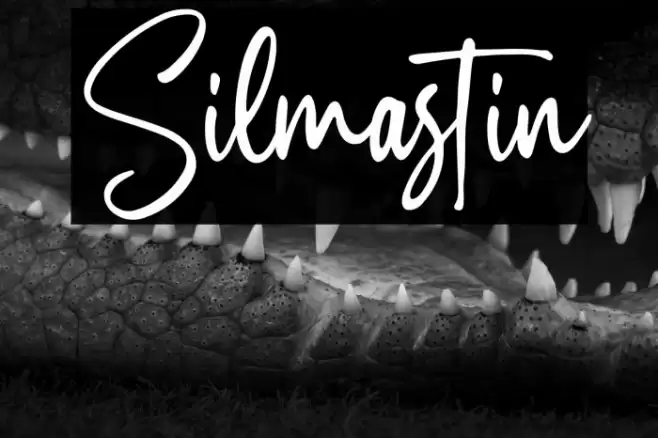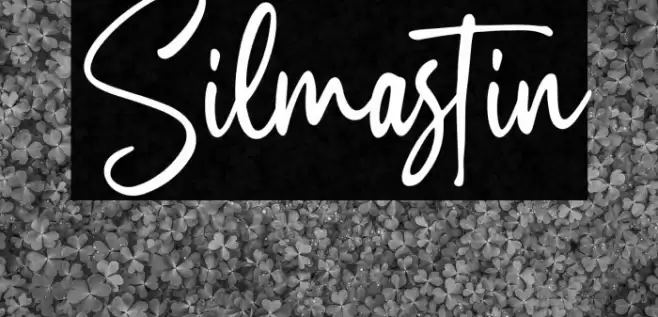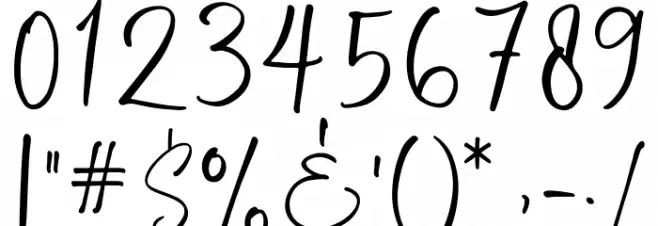
Silmastin Font
Silmastin Description
This font features a dynamic and expressive handwritten style, characterized by its fluid and cursive letterforms. The uppercase letters are tall and slender, with a slight slant that adds a sense of motion and elegance. The lowercase letters are more compact and rounded, maintaining a consistent flow that enhances readability. The numerals are distinct and easy to distinguish, with a playful yet sophisticated appearance. Special characters are creatively integrated, maintaining the overall aesthetic of the font. This font is ideal for projects that require a personal touch or a creative flair.
A dynamic and expressive handwritten font with fluid, cursive letterforms from Uncategorized fonts.
- Proposed Projects: Ideal for greeting cards, invitations, branding, and social media graphics.
- Use Case: Logos, Headlines, Invitations